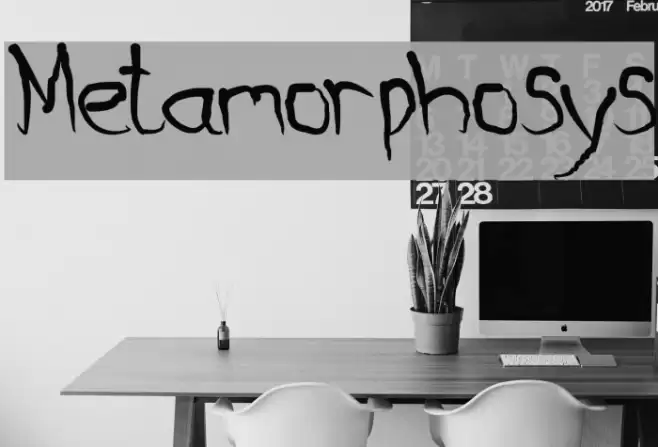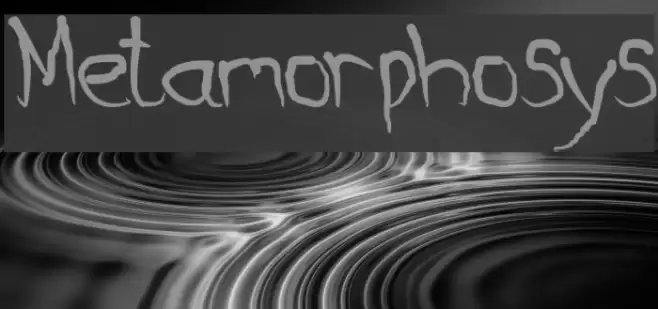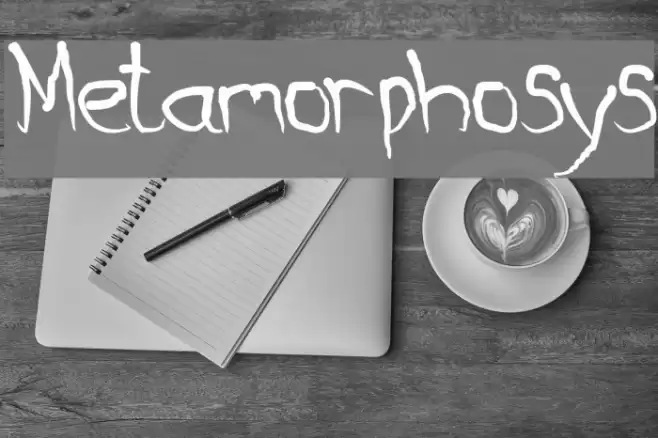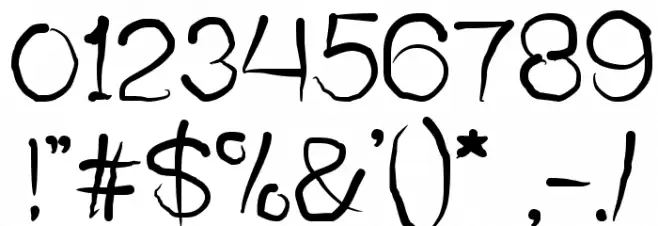
Metamorphosys Font
Metamorphosys Description
This font exhibits a unique, hand-drawn style with an organic and slightly chaotic appearance. The characters are irregular and have a playful, artistic flair, reminiscent of brush strokes or ink drawings. The uppercase and lowercase letters maintain a consistent style, with varying line thickness and a sense of movement. The numerals and special characters follow the same aesthetic, adding to the font's cohesive look. This font's distinctiveness makes it stand out, offering a creative and unconventional option for design projects.
A hand-drawn, artistic font with irregular, brush-like strokes from Uncategorized fonts.
- Proposed Projects: Ideal for creative projects such as art posters, album covers, or branding for artistic ventures.
- Overall Style: Artistic
- Use Case: Logos, Posters, Creative Branding